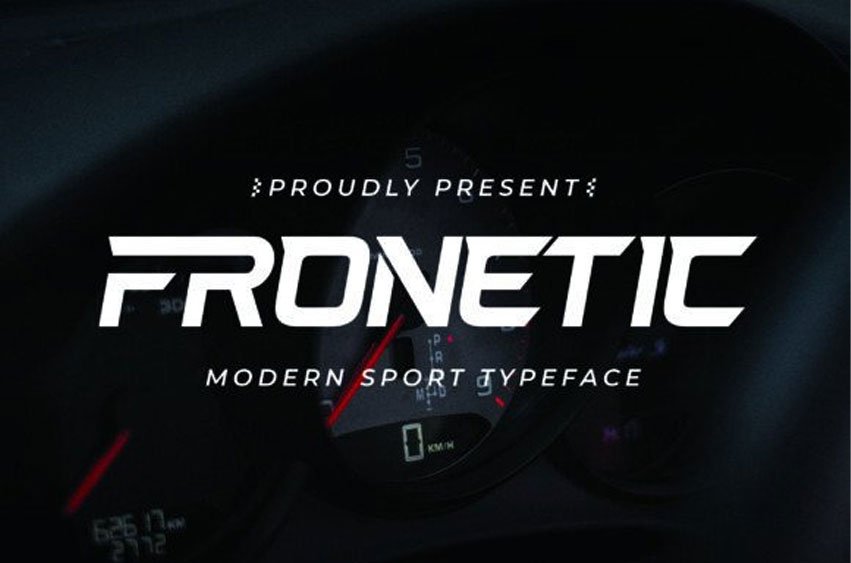
Fronetic Font is a bold and dynamic modern sport font built to capture speed, energy, and power. With its sharp angles, clean cuts, and futuristic look, Fronetic is designed to bring a strong competitive edge to your projects.
Perfect for sports branding, racing themes, logos, posters, apparel, and headline designs, Fronetic delivers a fast-paced and energetic style that stands out in any modern design arena.